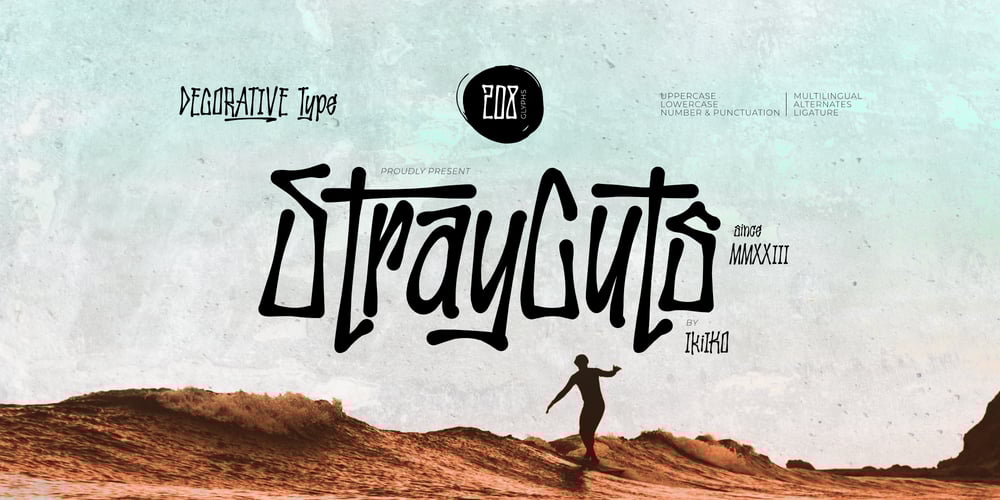
Stray Cuts Font Family was designed by Andhika Pradana and published by IKIIKOWRK. Stray Cuts contains 1 styles and family package options. Introducing Stray Cuts – Decorative Type, created by ikiiko.Stray Cuts is a raw and expressive brush font with a touch of “Surf Vibes”. This type has a freestyle line with a sharp cut shape. This typeface is perfect for an extreme sport event, poster, flyer, magazine cover, street wear brand, fashion youth, quotes, or stylish text overlay to any background image.What’s included? Uppercase & Lowercase Number & Punctuation Alternates & Ligature Multilingual Support Format File : TTF & OTF Works on PC & Mac Get also a good offer & FREEBIE at our site : www.ikiiko.comEnjoy our font and if you have any questions, you can contact us by email : ikiikowrk@gmail.com